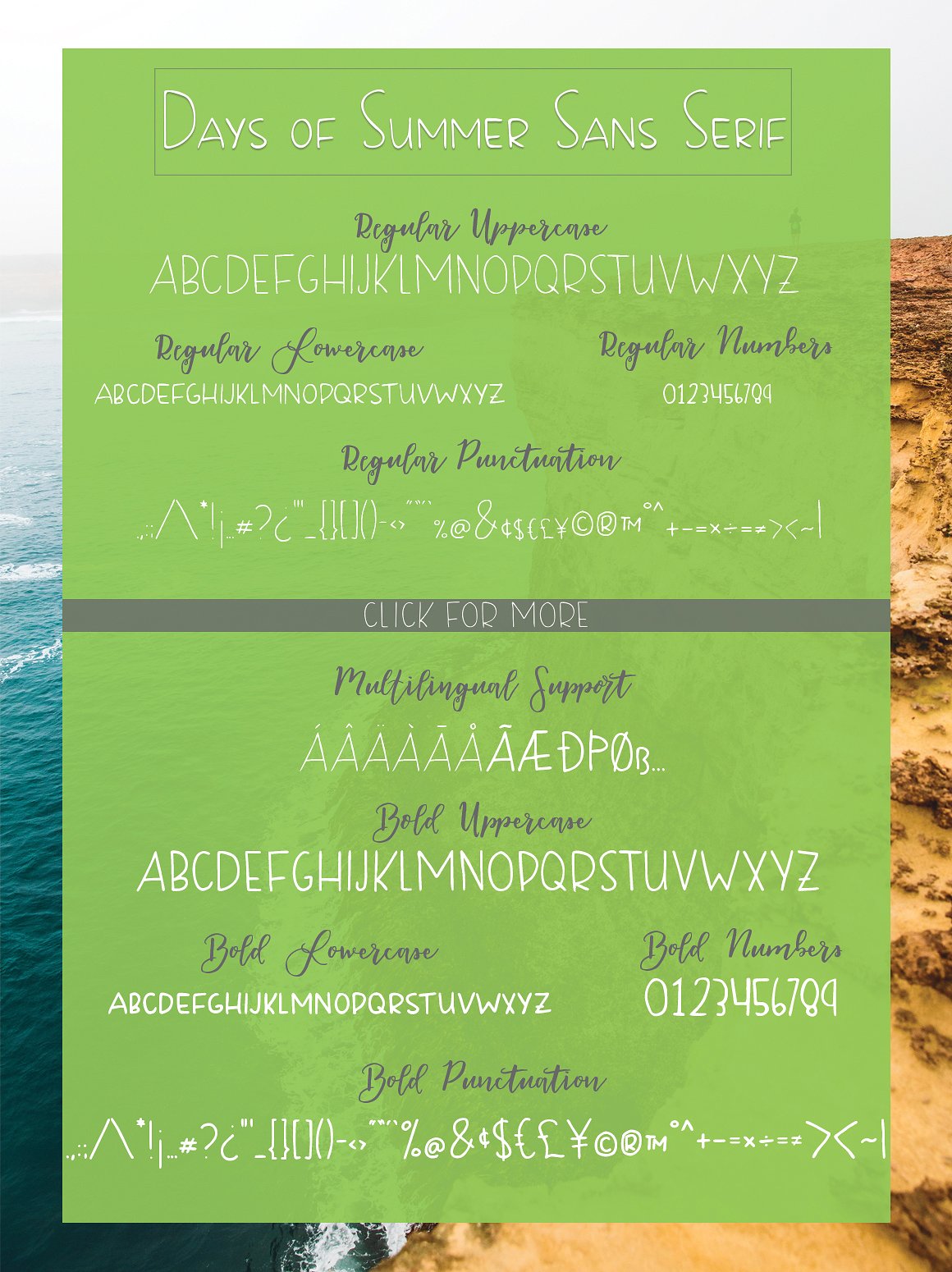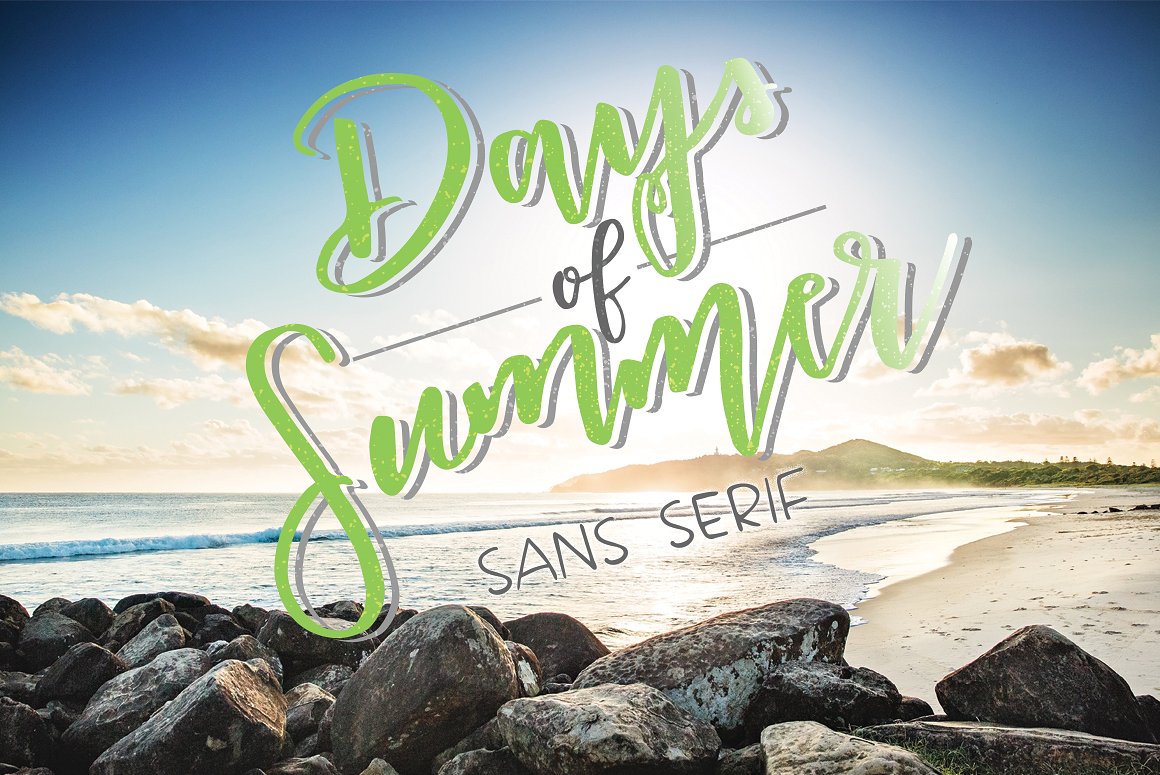
Days of Summer
Days of Summer Font
Days of Summer Sans Serif
Bring some charm to your design with Days of Summer Sans Serif- a hand lettered, all-caps sans serif font!
For branding, logos, social media, magazines, cards, prints, and more, Days of Summer Sans Serif is your new go-to font! This hand lettered font looks great paired with a script font or on its own. The slight wobble and imperfections in the characters add a charming, authentic look to your designs. No matter what your design needs, Days of Summer Sans Serif can help!